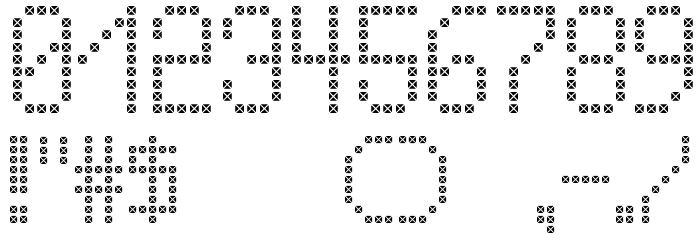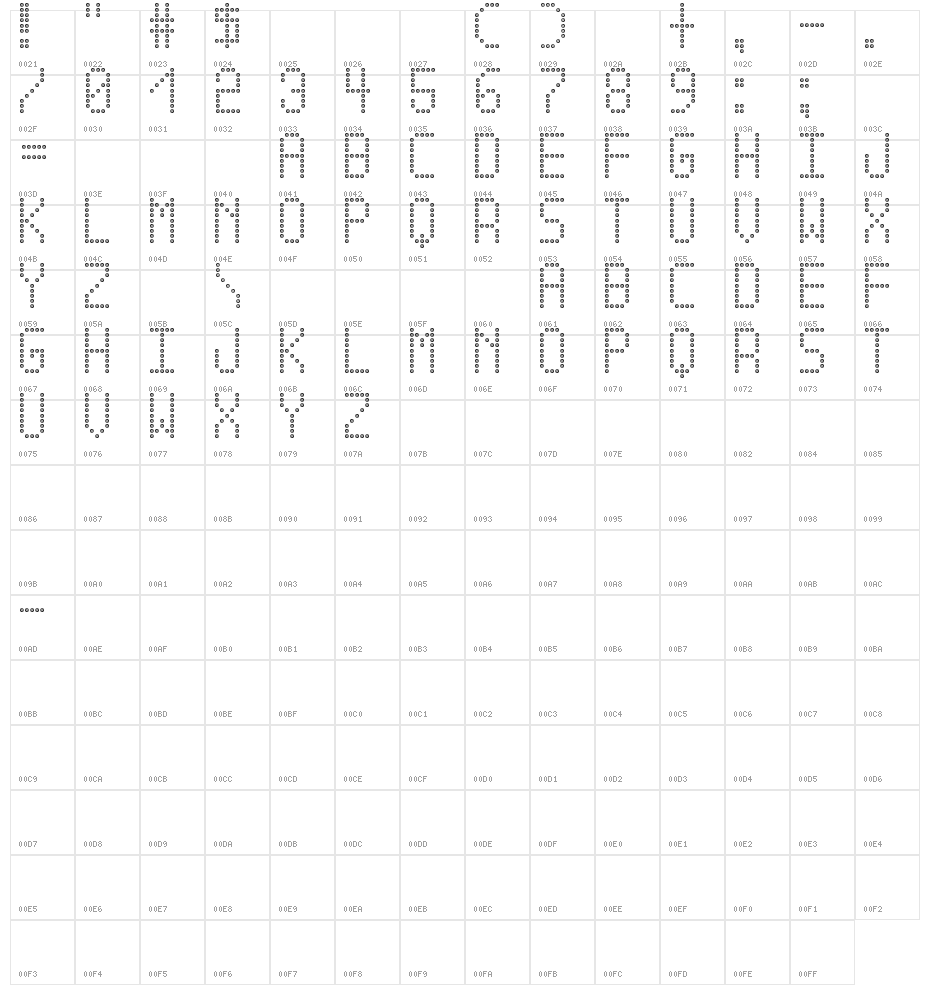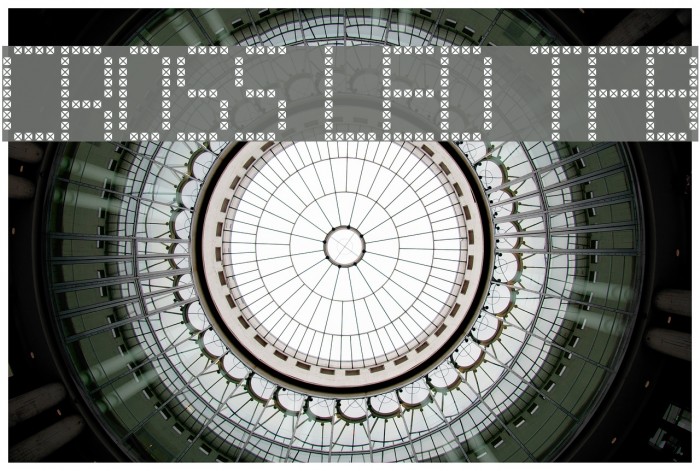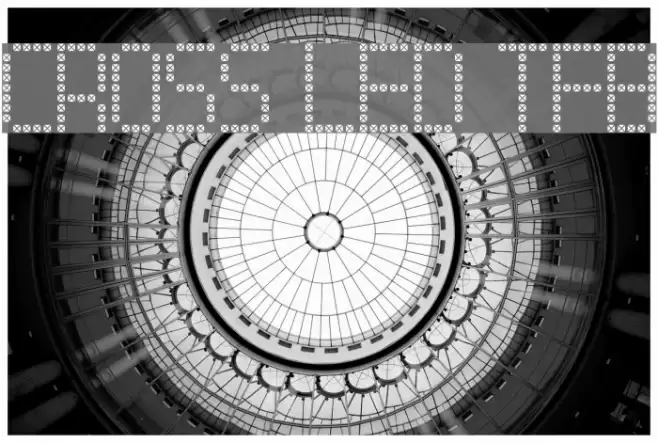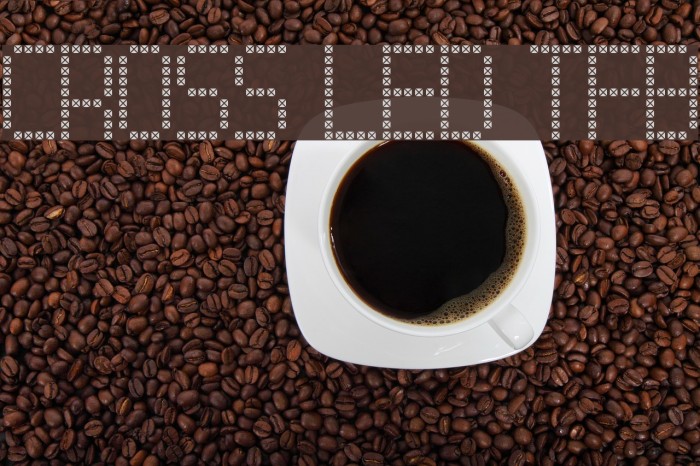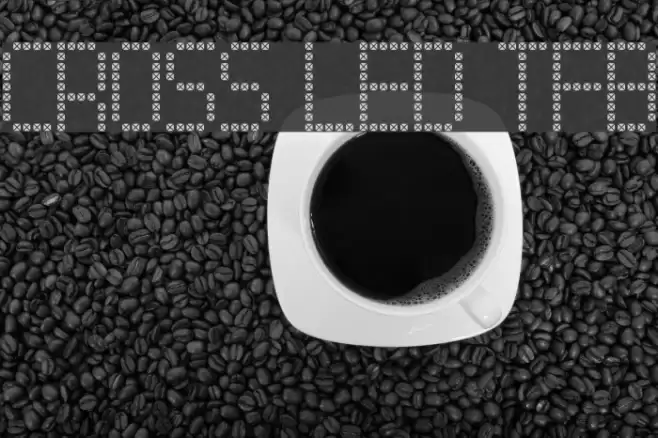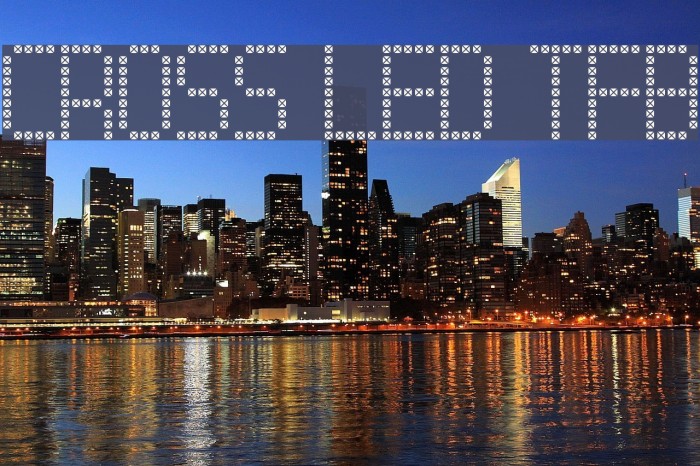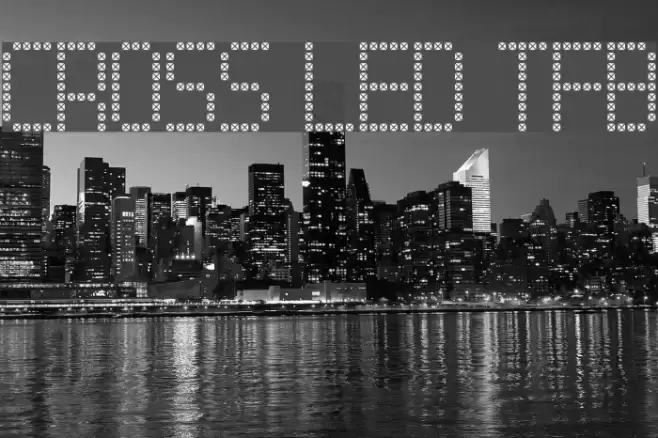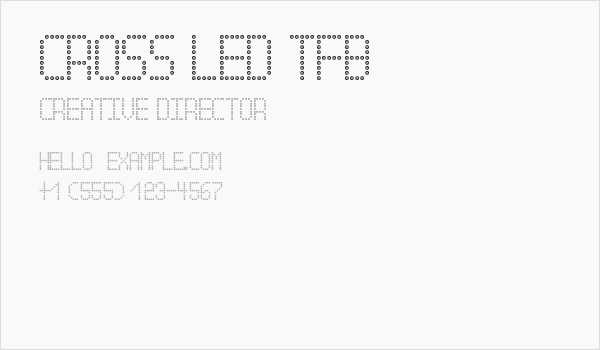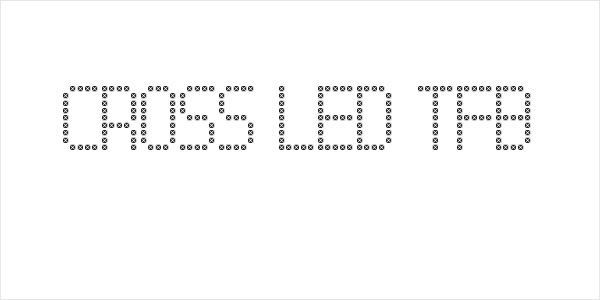
Cross led tfb Font
Cross led tfb Description
This font features a unique dot-matrix style, reminiscent of LED displays. Each character is composed of a grid of dots, creating a digital and modern aesthetic. The design is consistent across uppercase and lowercase letters, as well as numbers and special characters. The uniformity of the dot pattern gives it a structured and geometric appearance, making it highly legible from a distance. This font is ideal for projects that require a technological or futuristic feel, such as digital displays, tech-themed posters, or electronic device interfaces.